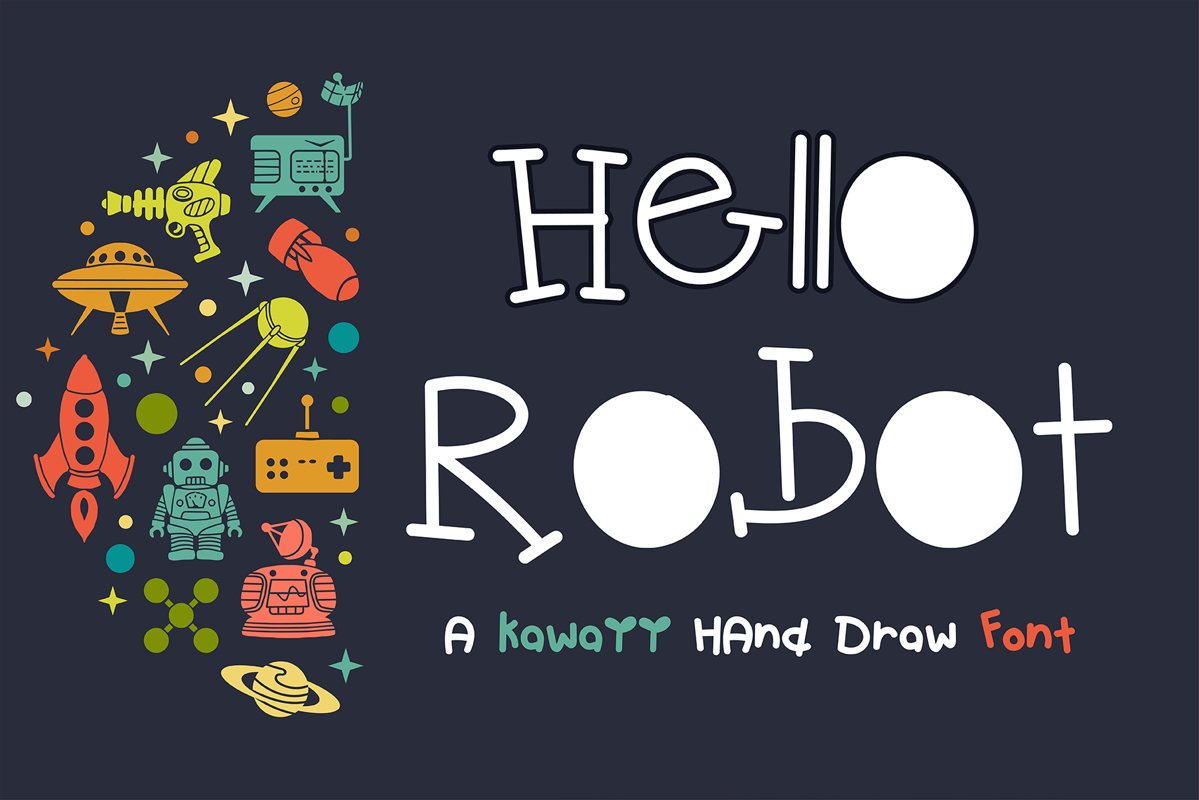
Hello Robot Handwritten- cute kid font Kawaii style!
Are you looking for cute Handwritten
font for your project?
Then you have come the right land!!
Back to school font
This Font is perfect for kid greeting
card, Print t shirt, fashion artworks or just play around.
Festival like Valentine's Day, Kid's Party,
wedding!!